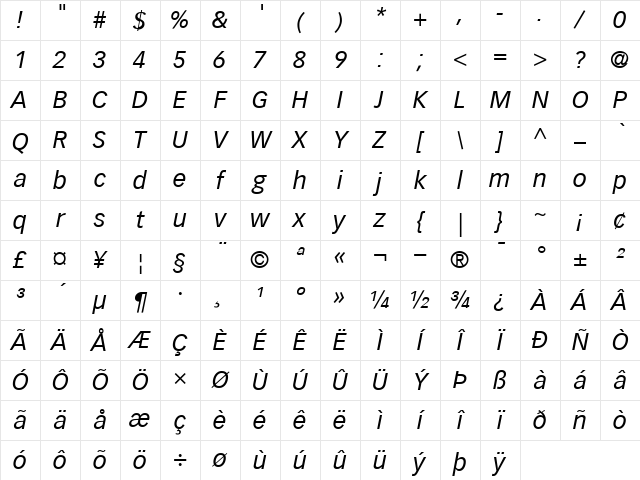
VectoraLH56 RomanItalic
Design Context for VectoraLH56
VectoraLH56 is a composed and adaptable typeface that performs quietly and consistently across a wide range of design contexts. The slanted form adds forward momentum and visual energy.
Pro Tip: Use VectoraLH56 for emphasis, pull quotes, and subheadings where its slanted energy can add rhythm to the layout.